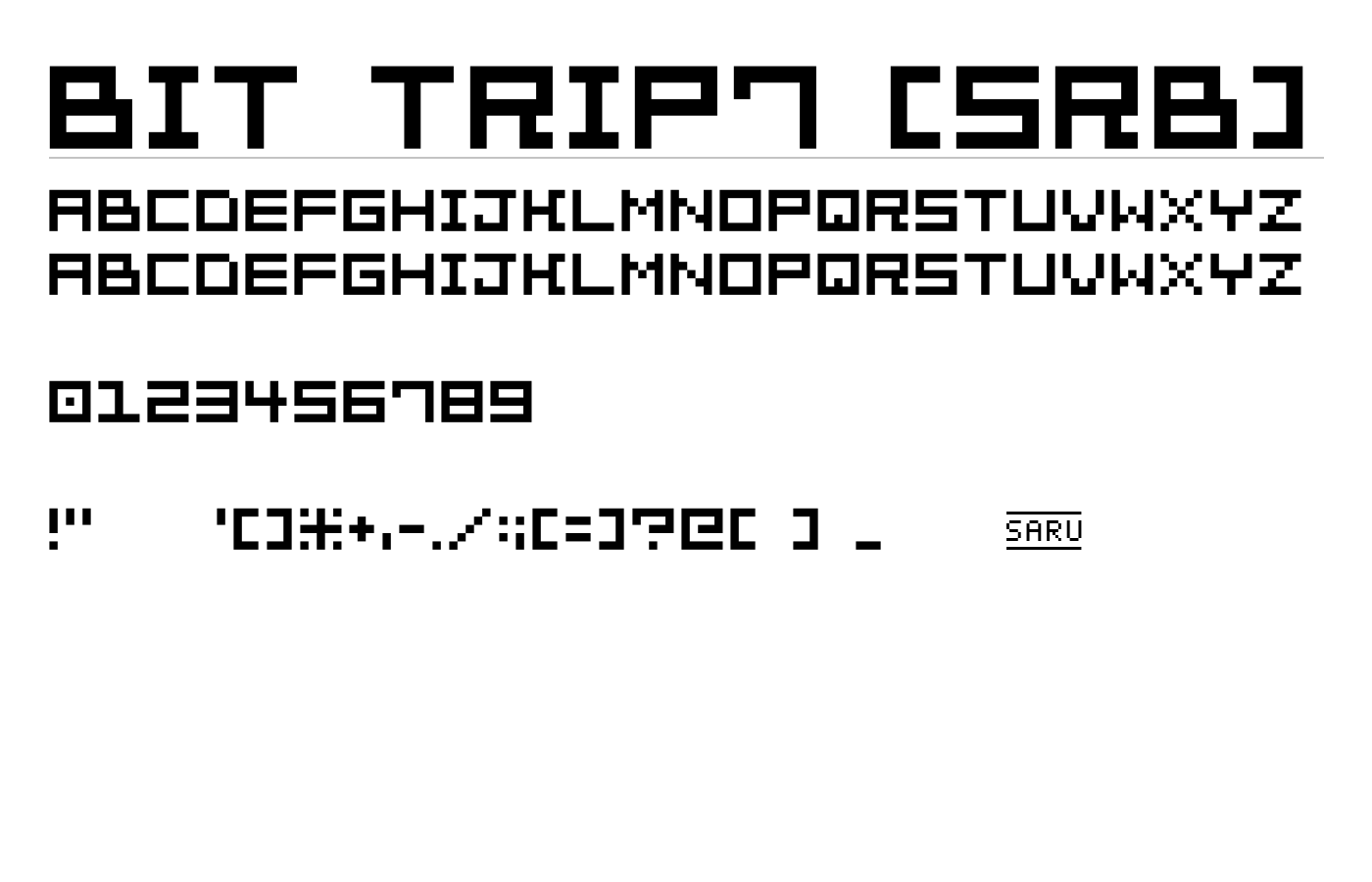
Bit Trip7 (sRB) is a pixelated, monospaced sans serif font with a bold, blocky appearance reminiscent of retro video game typography. Its rigid, geometric letterforms and squared edges give it a digital, tech-inspired personality, making it ideal for projects that want to evoke nostalgia, vintage gaming, or futuristic themes. This font works best in headlines, logos, and branding where a strong, tech-savvy style is desired, especially in digital or entertainment contexts.
Bit Trip7 (sRB) Font